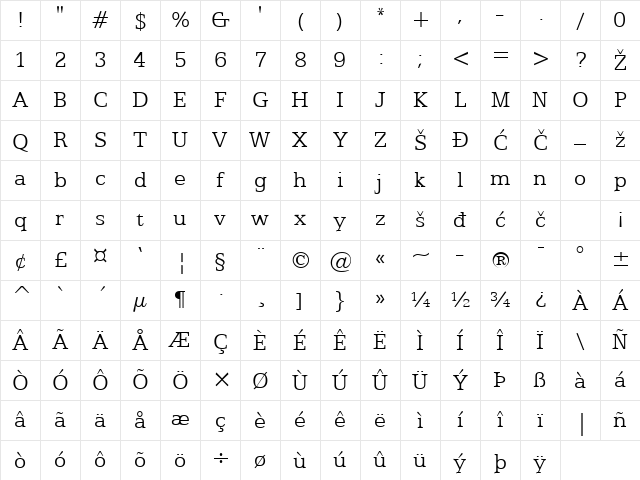
Complete EgyptianLight Regular glyph index. Displaying only characters natively supported by EgyptianLight Regular font.
EgyptianLight features prominent, blocky serifs that give it a confident, grounded presence - equally at home in editorial settings and bold branding work. Its slender proportions lend an understated elegance to any composition.
Pro Tip: Use EgyptianLight for headlines and subheadings where its slab serifs can make an impression. It also holds up well in mid-size body copy thanks to its sturdy construction.